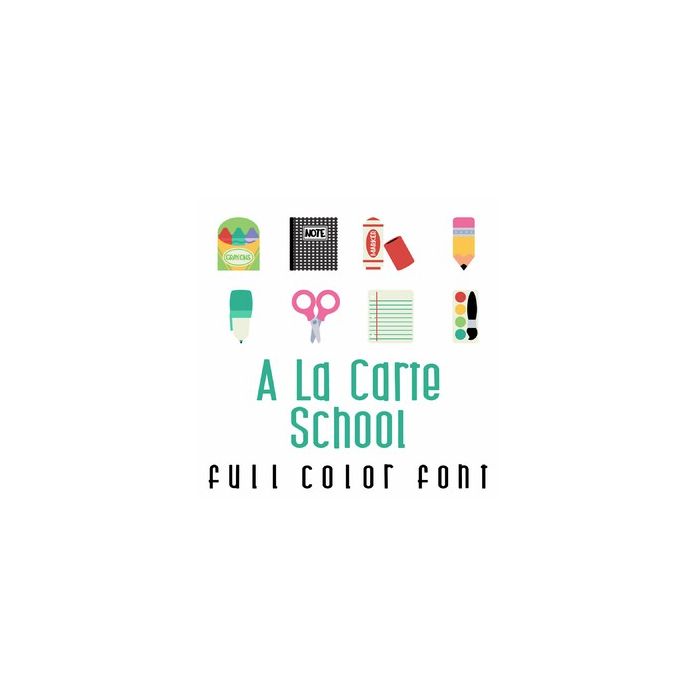
This adorable full color doodlebat font features fun school supplies. Perfect for classrooms, teachers, cards, crafts, gifts, decor, scrap book pages, planner stickers and more!